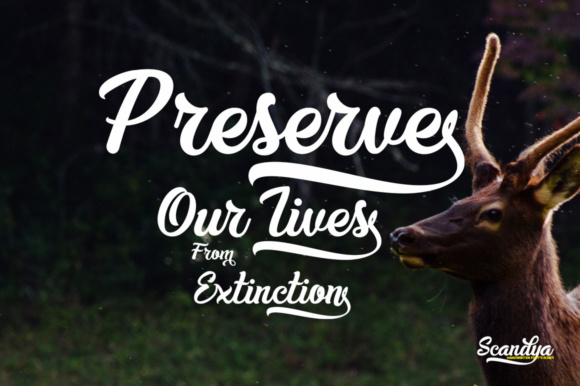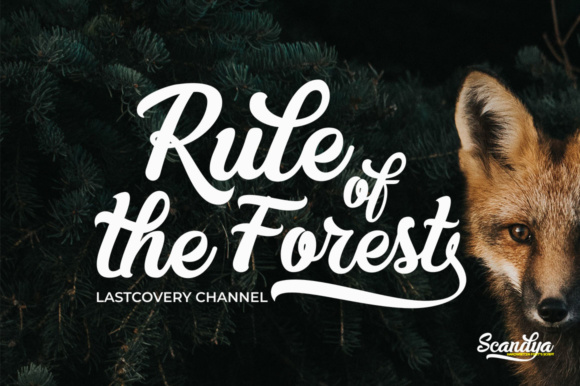
Scandya Script Font
db-ku.com - Script & Handwritten -- Scandya is a brush script font based on the expression of real handwriting. It lets you transform type into an exciting and beautiful piece of work. It’s hand-lettered look adds a real human touch to things and comes along with a lot of loving details.